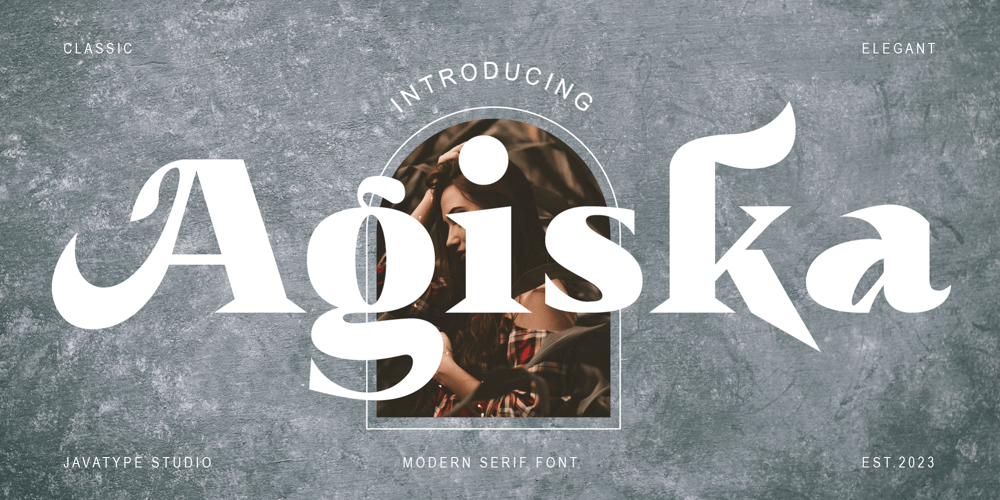
Agiska Font Family was designed by Tio Yulianto and published by Javatypestd. Agiska contains 1 styles and family package options. Introducing Agiska a Modern Serif Font Inspired by modern style combine with bold typography style. Come with an open type feature with a lot of alternates and end swash, which helps you to make great lettering.Agiska is best used for Logotype, headings, covers, posters, logos, quotes, product packaging, header, merchandise, social media & greeting cards, and many more.This font also supports multi-language.To access the alternate glyphs, you need a program that supports OpenType features such as Adobe Illustrator CC, Adobe Photoshop CC, Adobe Indesign, and Corel Draw.Thank you for your purchase!Hope you enjoy our font